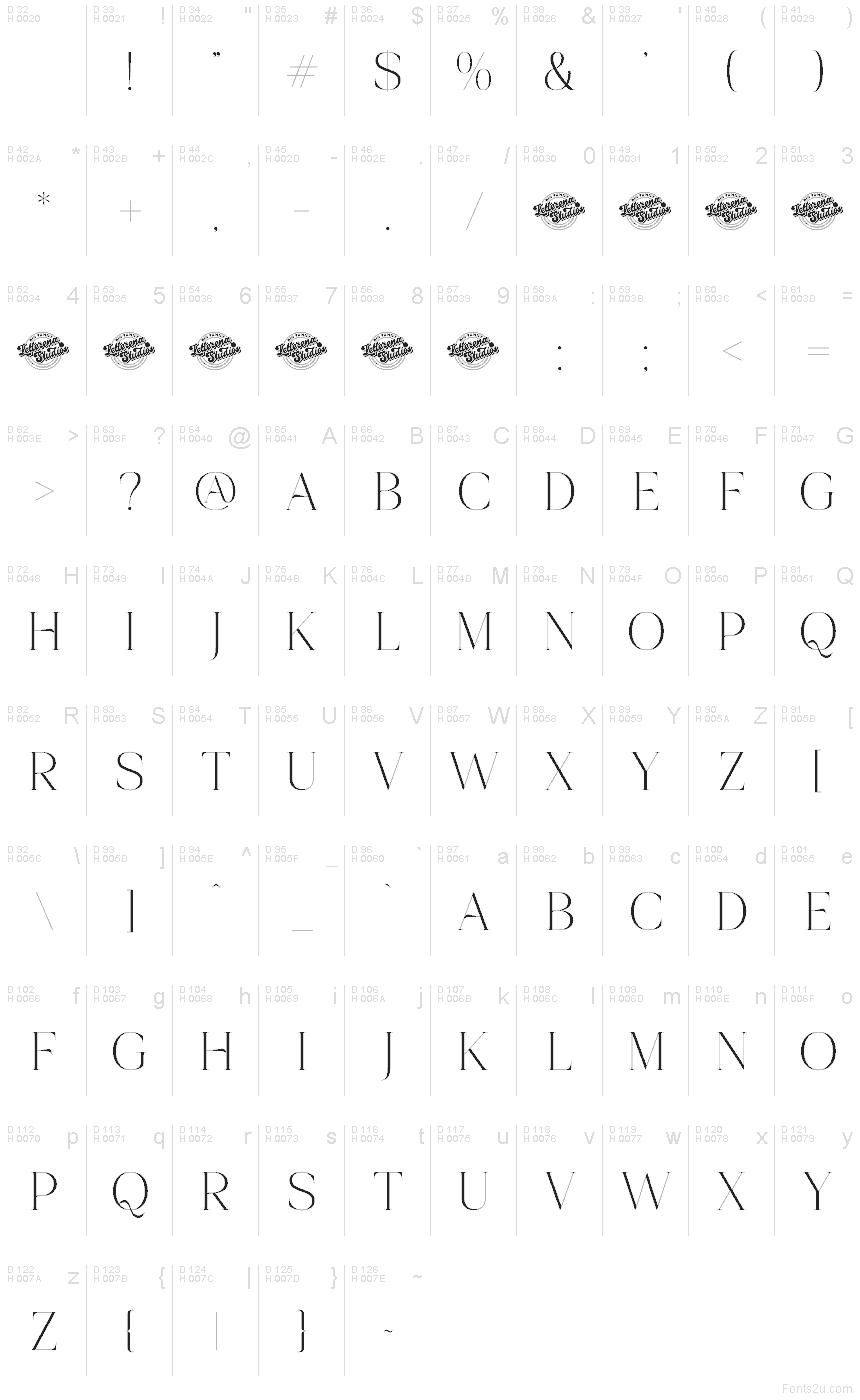
Onesta Vigano DEMO VERSION
Onesta Vigano font by Storytype Studio is a sophisticated and classic serif design with an elegant touch. This professional and timeless font offers an exquisite style that suits formal settings where a visually effective typeface is required. Inspired by established newspapers, magazines, and printed media, Onesta maintains its aesthetic individuality that remains relevant even in the digital era.
Such a free serif font can be used in modern media applications like websites, information blogs, social media posts, posters ideas, book cover designs, or branding identities. Use the unique Onesta writing for official publications like journals and magazines where readability is key.